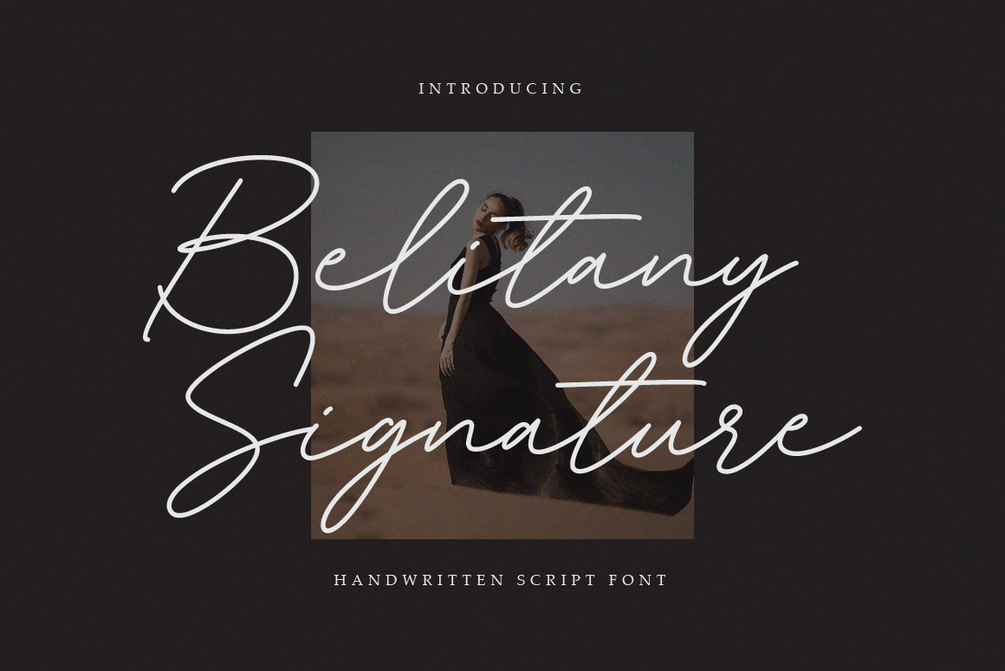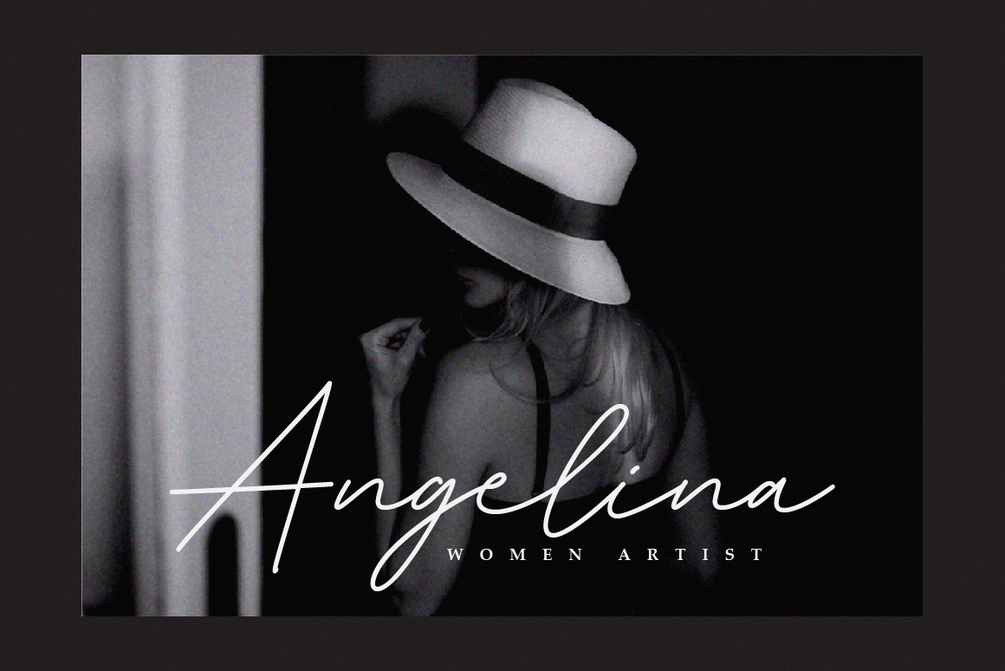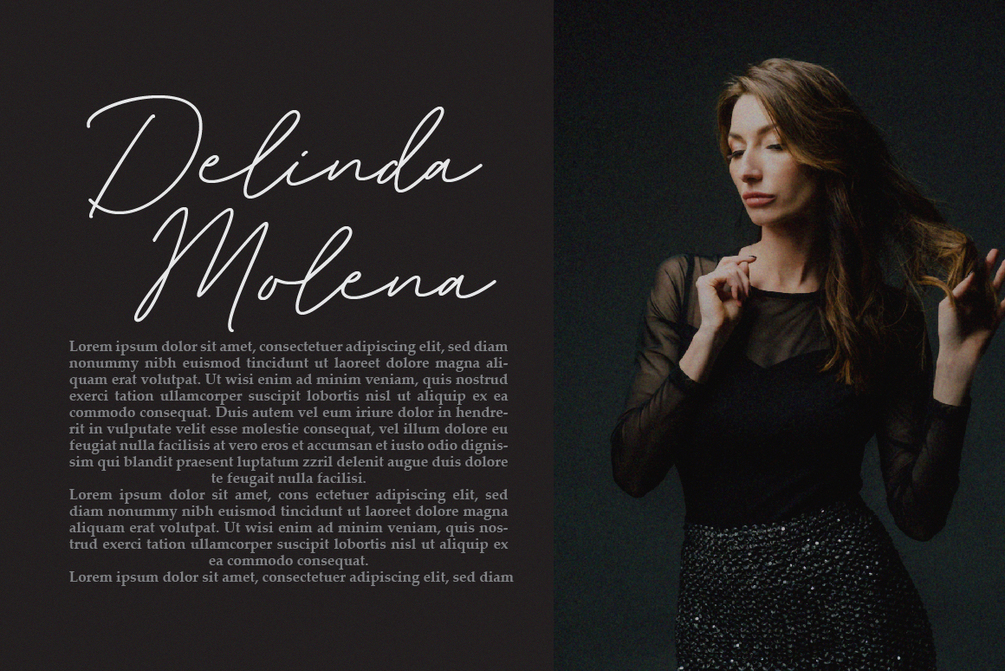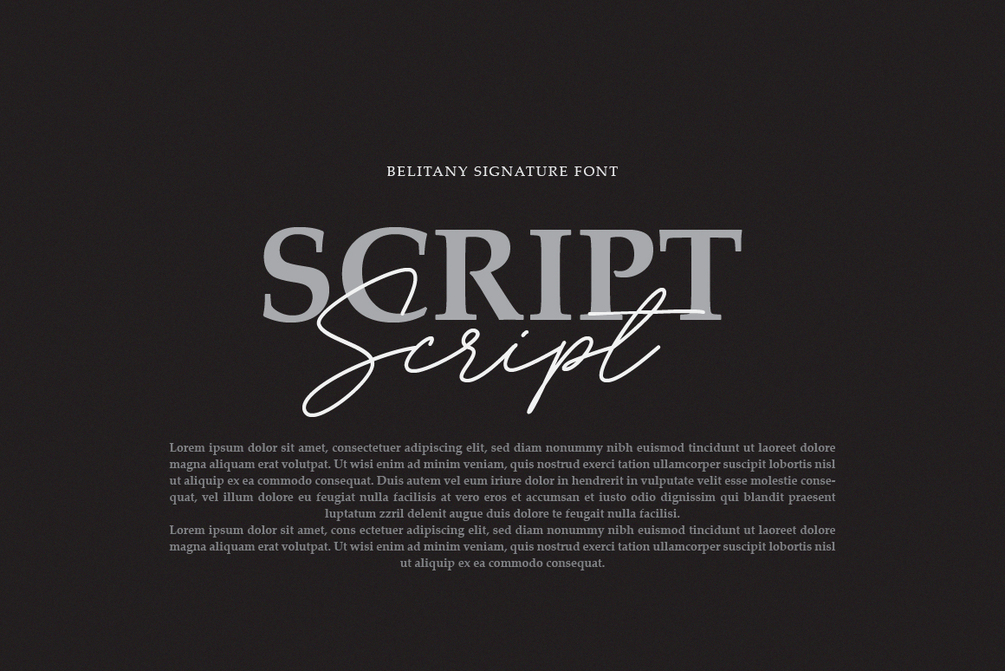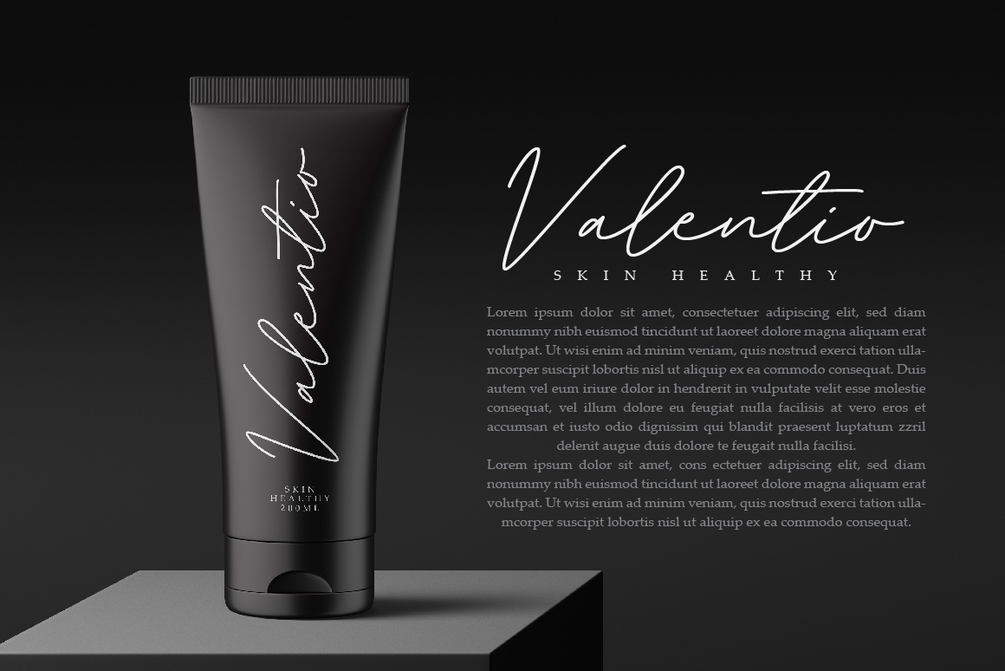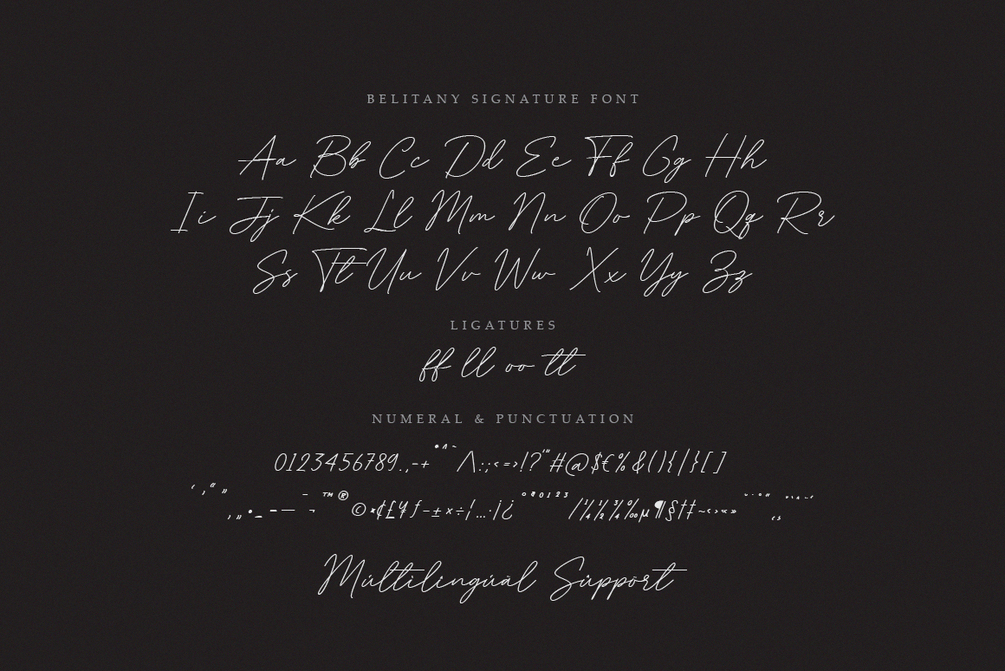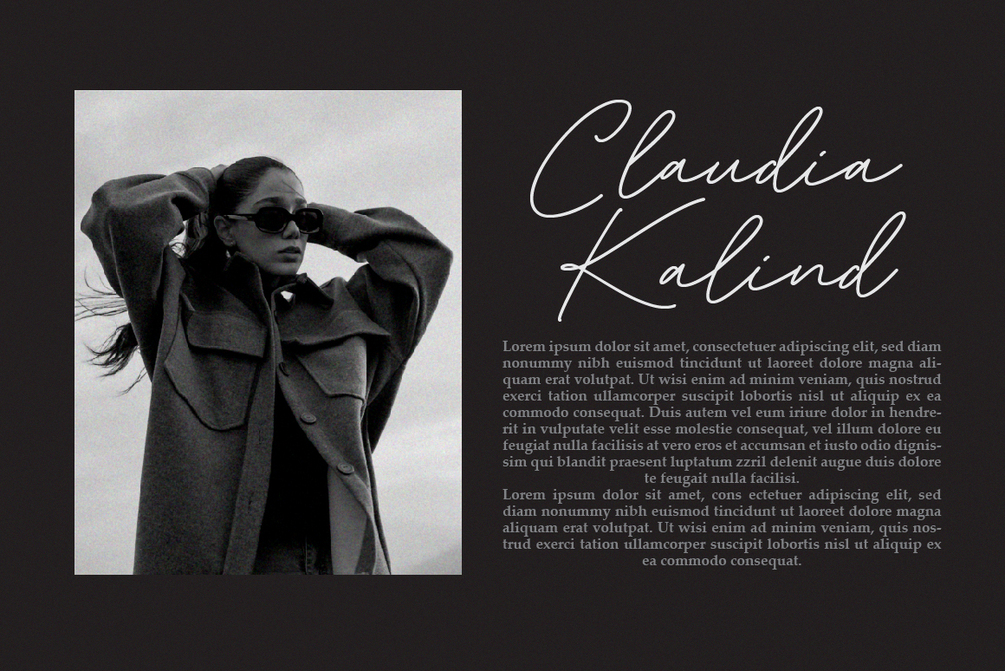
Belitany Signature
Belitany Signature is a sleek, handwritten font with a distinctive signature style. Its elegant and refined strokes bring a personal and sophisticated feel to your designs. Whether it's for logos, invitations, marketing materials, or other design projects that call for a unique handwritten touch, Belitany Signature adds an exclusive and graceful flair.
• Standard alphabet and punctuation
• Ligature Feature
• Multilingual Support